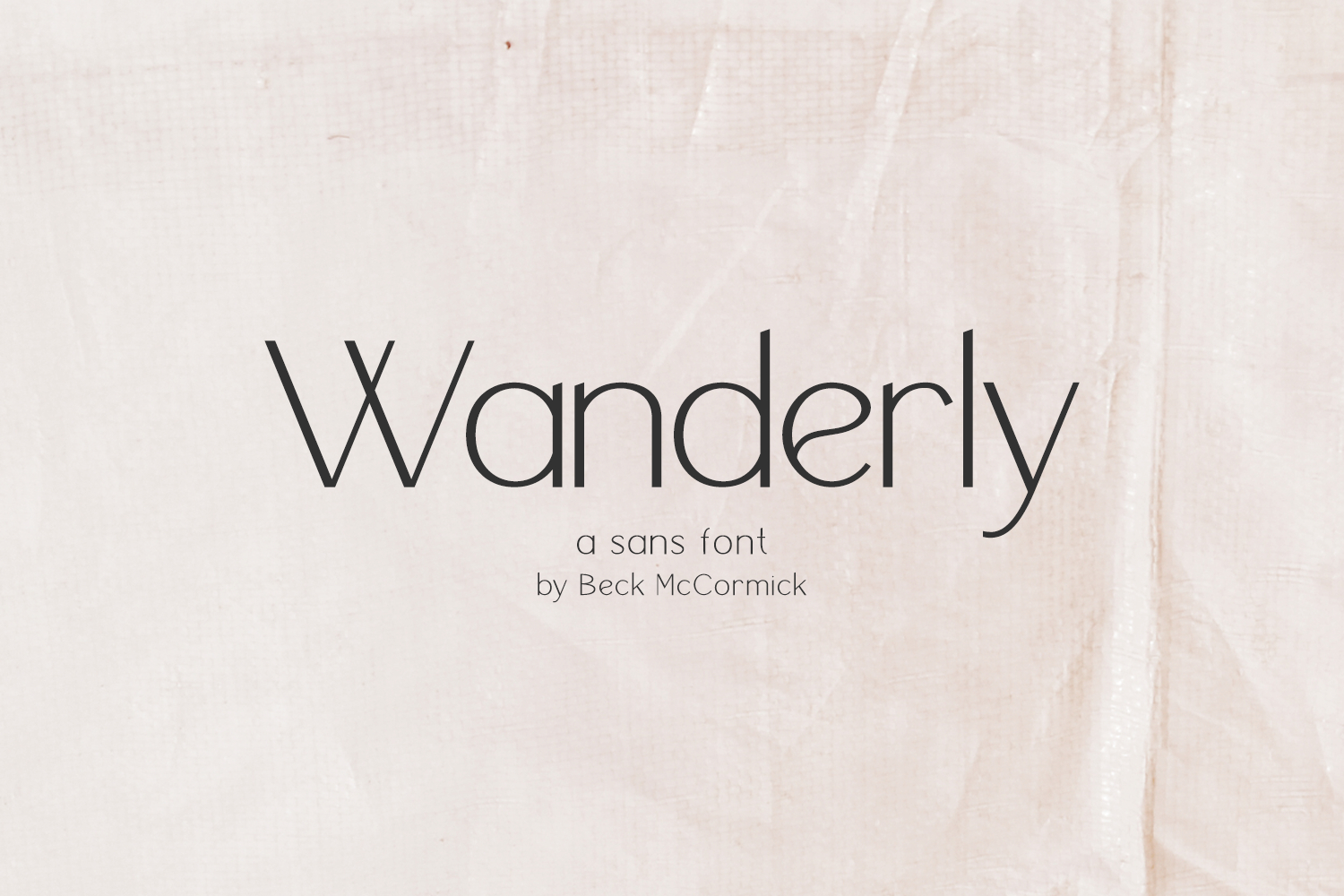
Wanderly Sans
Introducing Wanderly Sans - Wanderly Sans is a sleek, modern font. Its contemporary aesthetic makes it a perfect fit for effortlessly designing logos & branding, elegant paper products like wedding invitation suites, or for displaying content on your website. Wanderly Sans can also be used for other print design like magazines and flyers or printed marketing materials. This font can also be used for digital marketing materials and social media items!
- 10 alternate characters - A, E, K, M, N, P, R, f, j, t